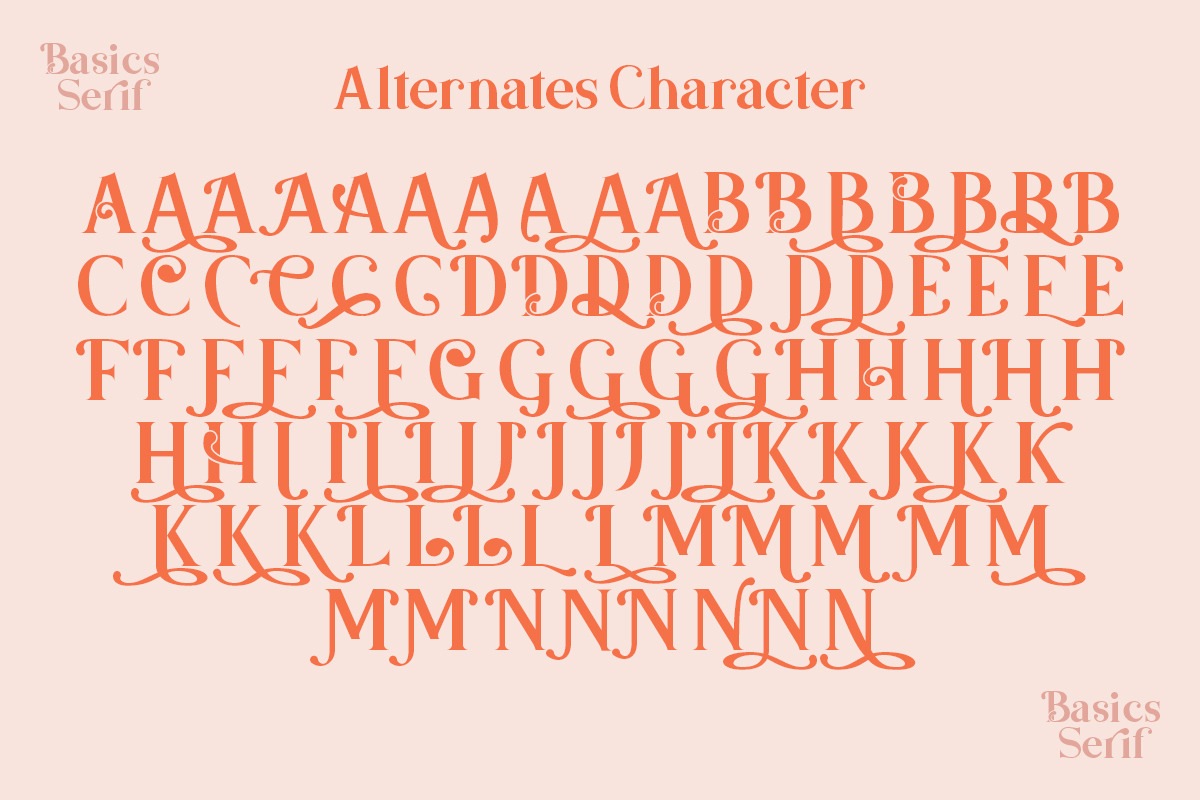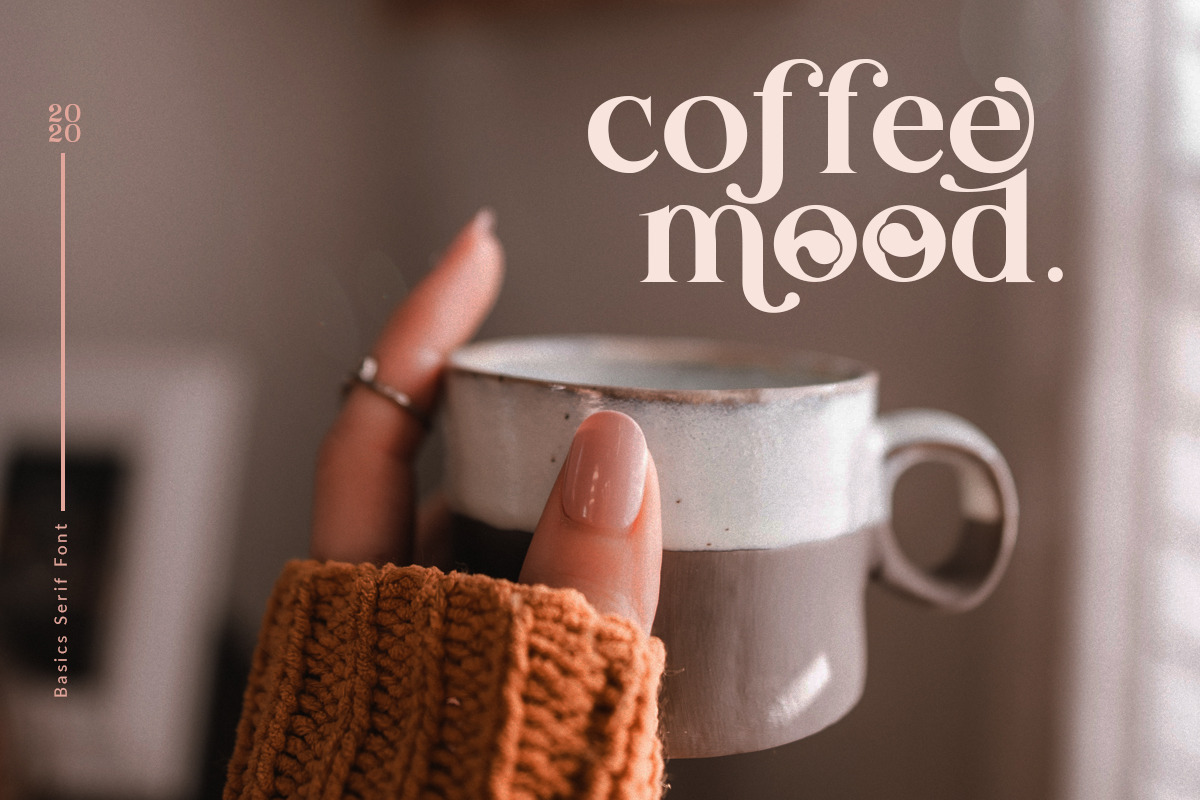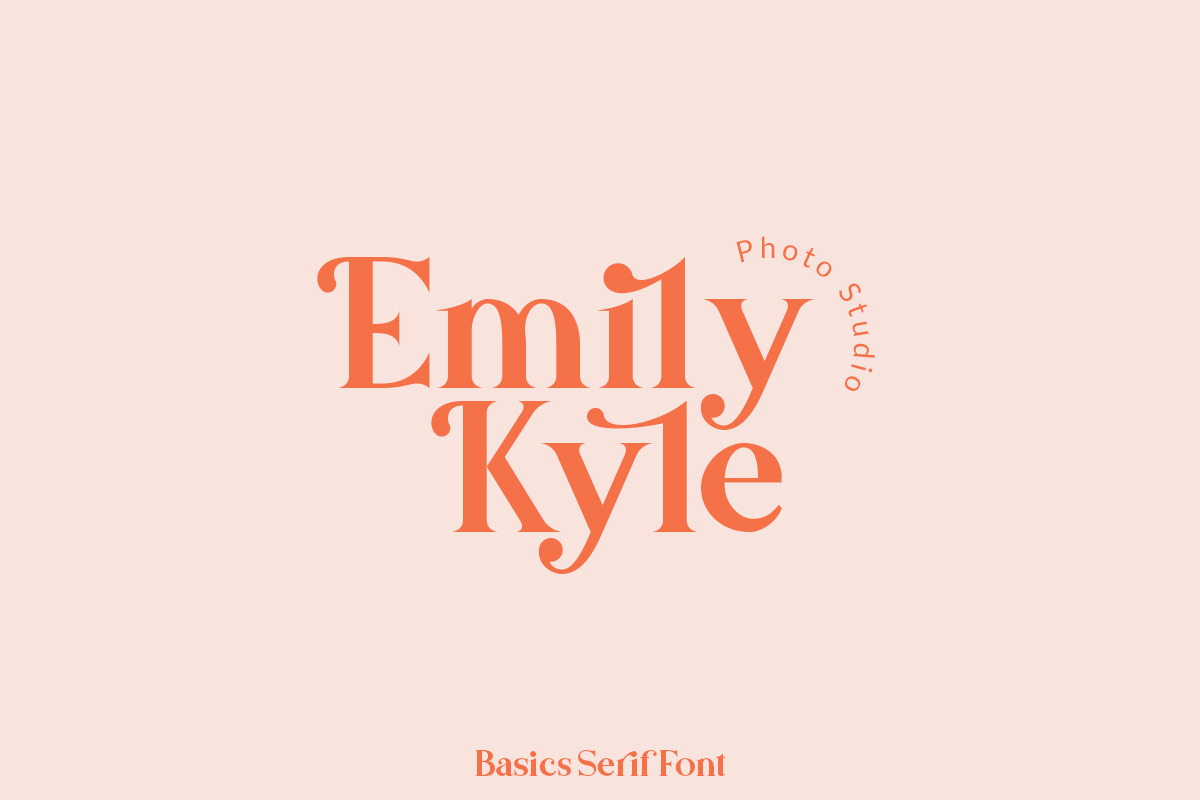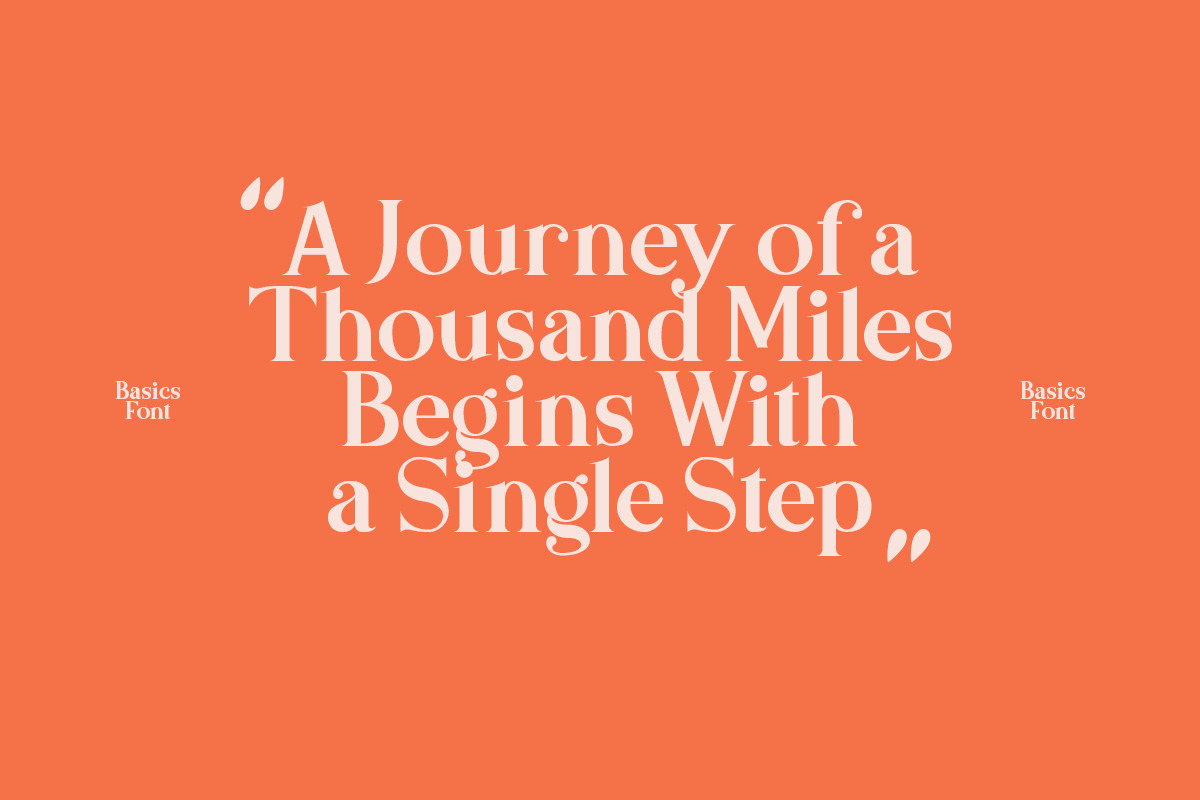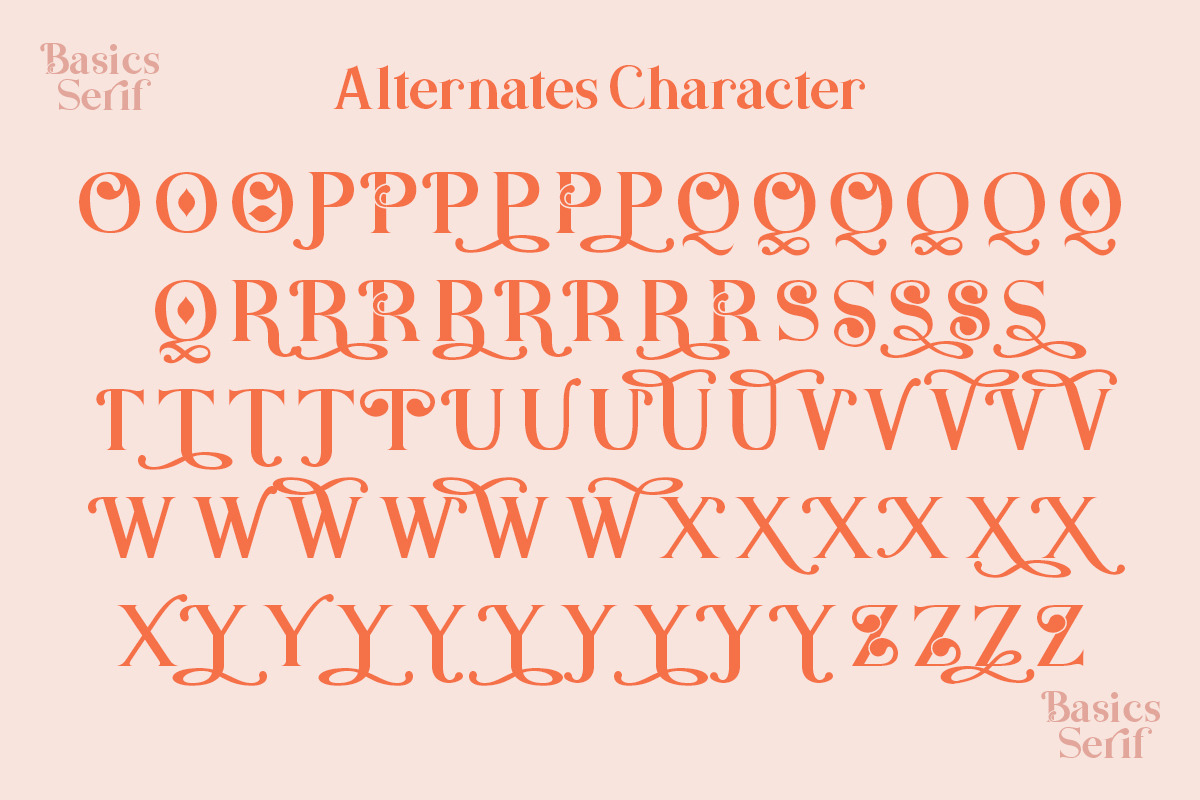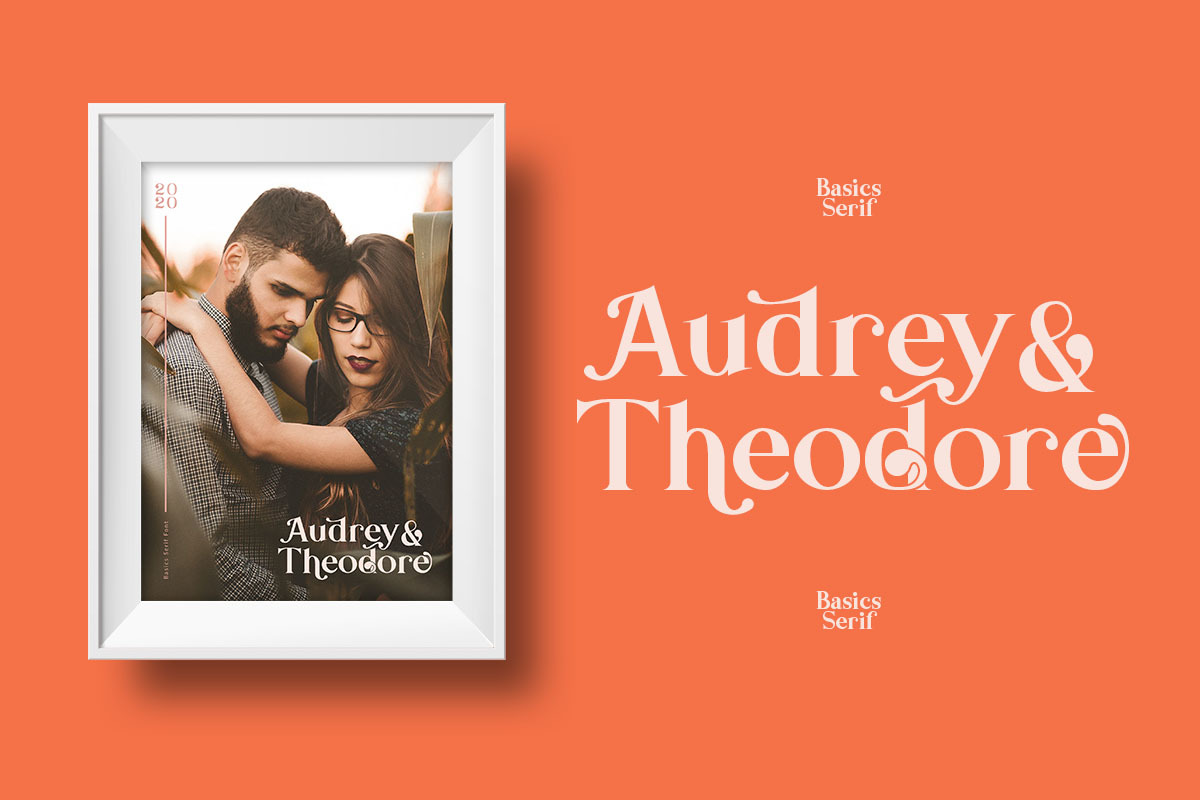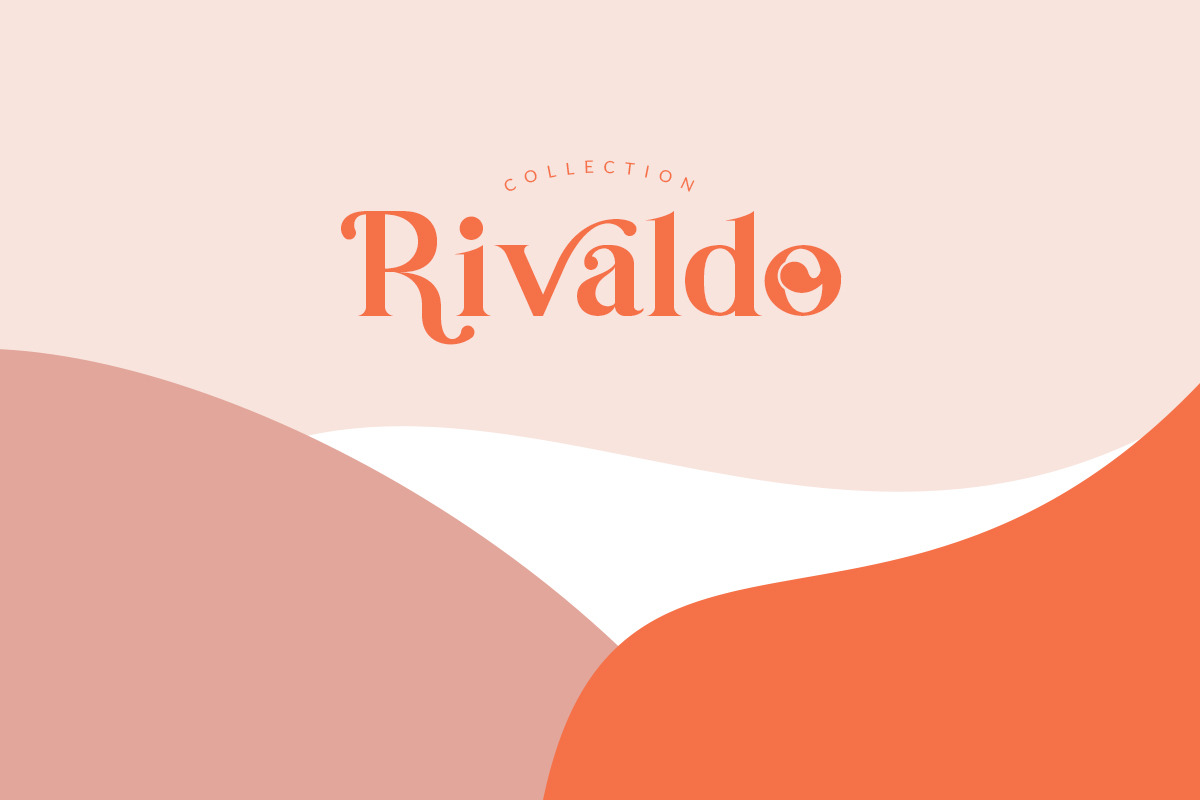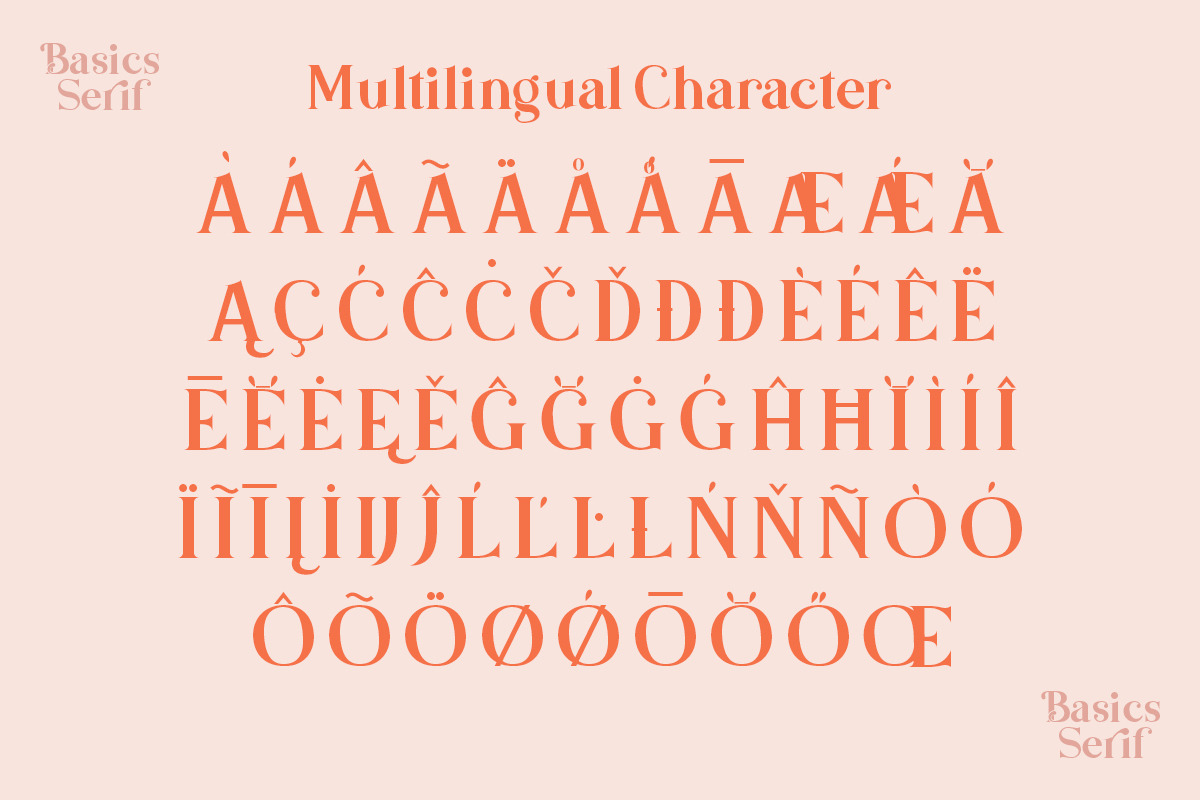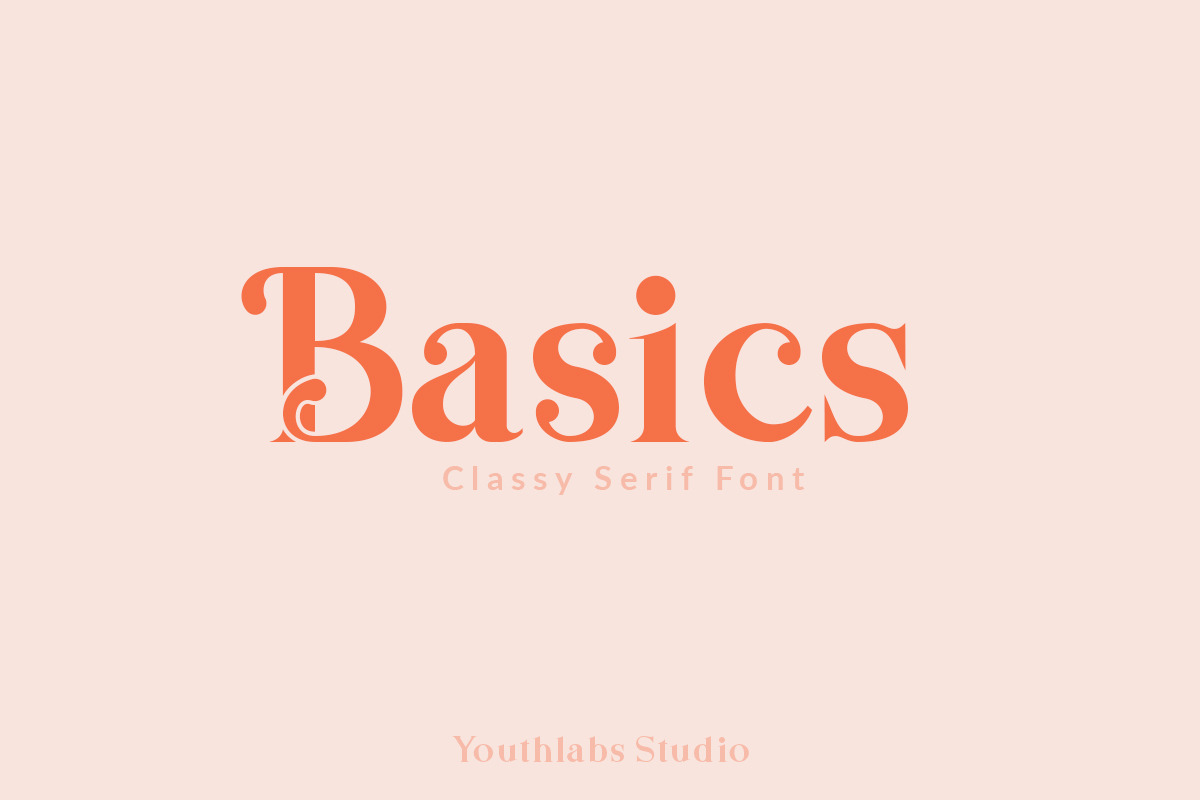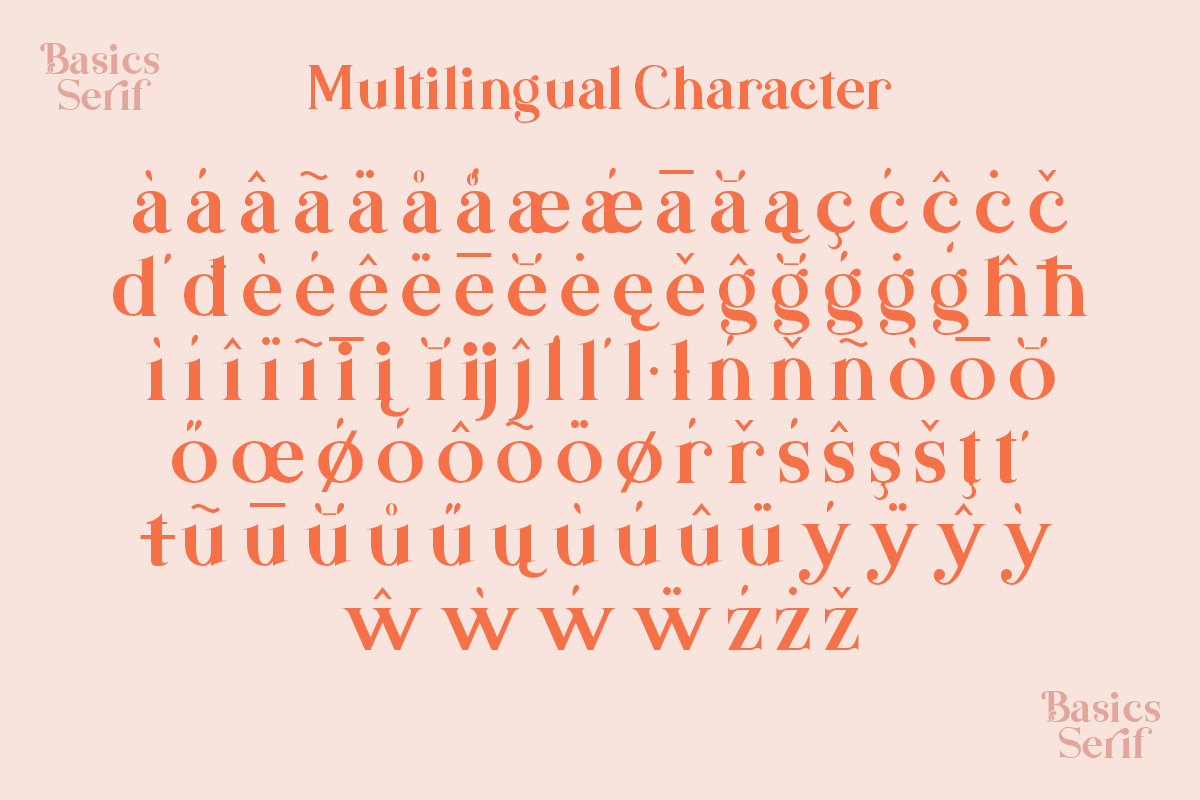
Introducing Basics Serif Font - A Brand New Serif Font with Classy Curves, More Alternative Character, and Multilingual Support
Basics Serif Font Inspired by Fancy and Vintage Typography. Basics Serif Font is a very versatile font. you can use this font to make perfect various design. Basics Serif Font can improve more than 250 alternates character where is Alternate 1 - Alternate 10 Character
Basics Serif Font support 24 Language : Afrikaans Albanian Catalan Croatian Czech Danish Dutch English Estonian Finnish French Hungarian Italian Lithuanian Maltese Norwegian Polish Portugese Slovak Slovenian Spanisch Swedish Turkish Zulu
What's the Feature ?
- More than 160 Uppercase Alternate
- More Than 120 Lowercase Alternate
- 24 Language Support
- Premade Logos